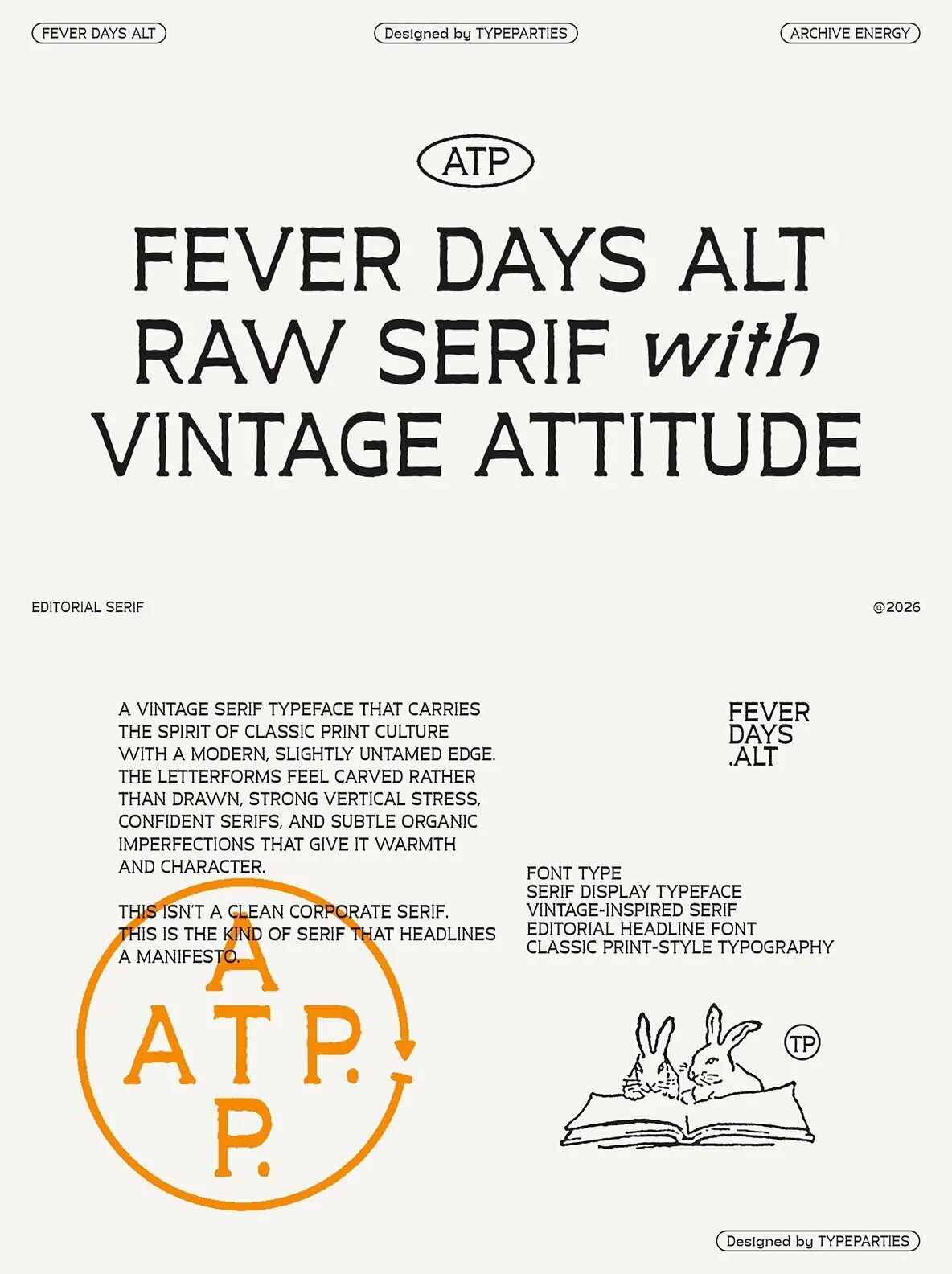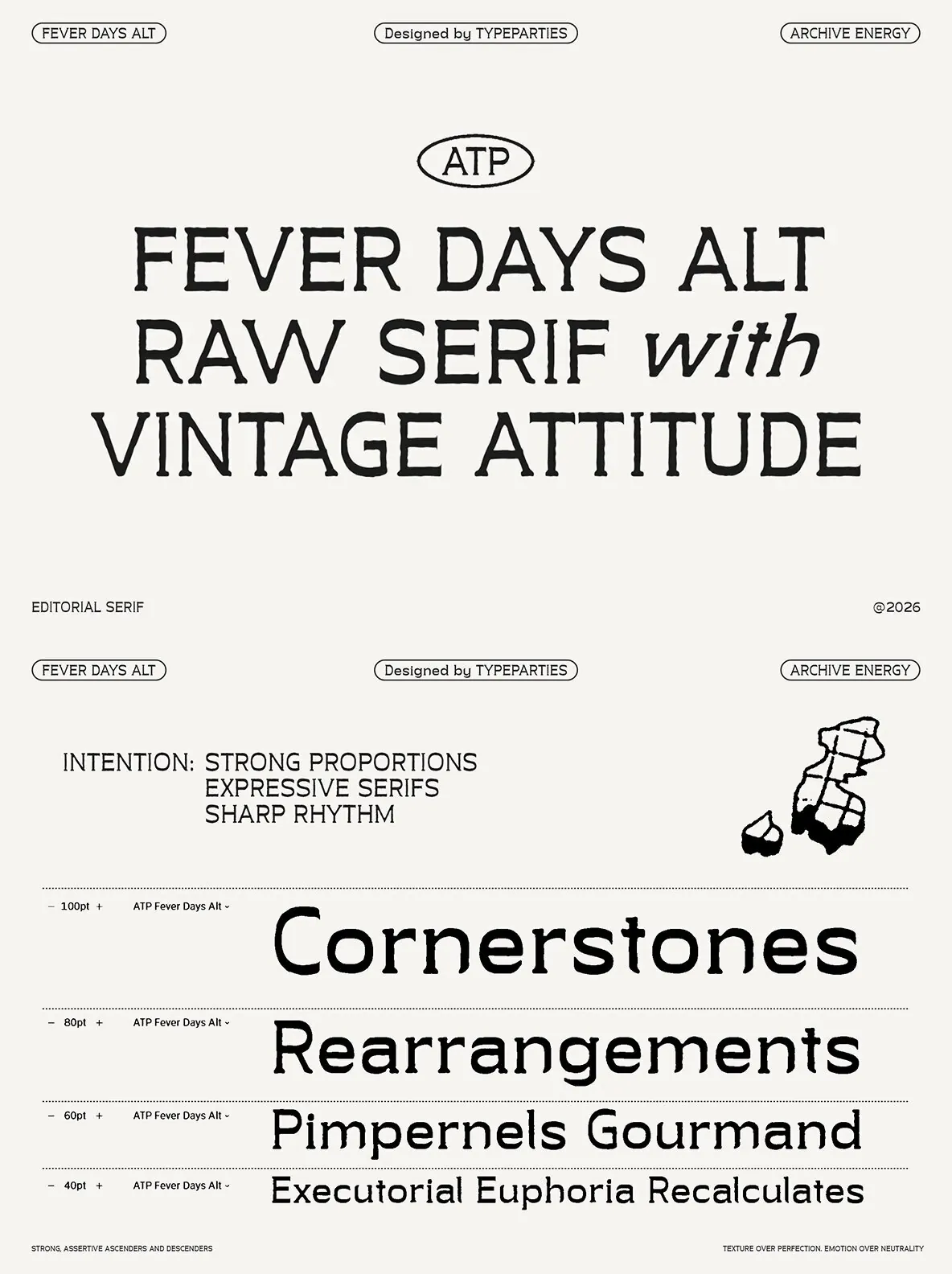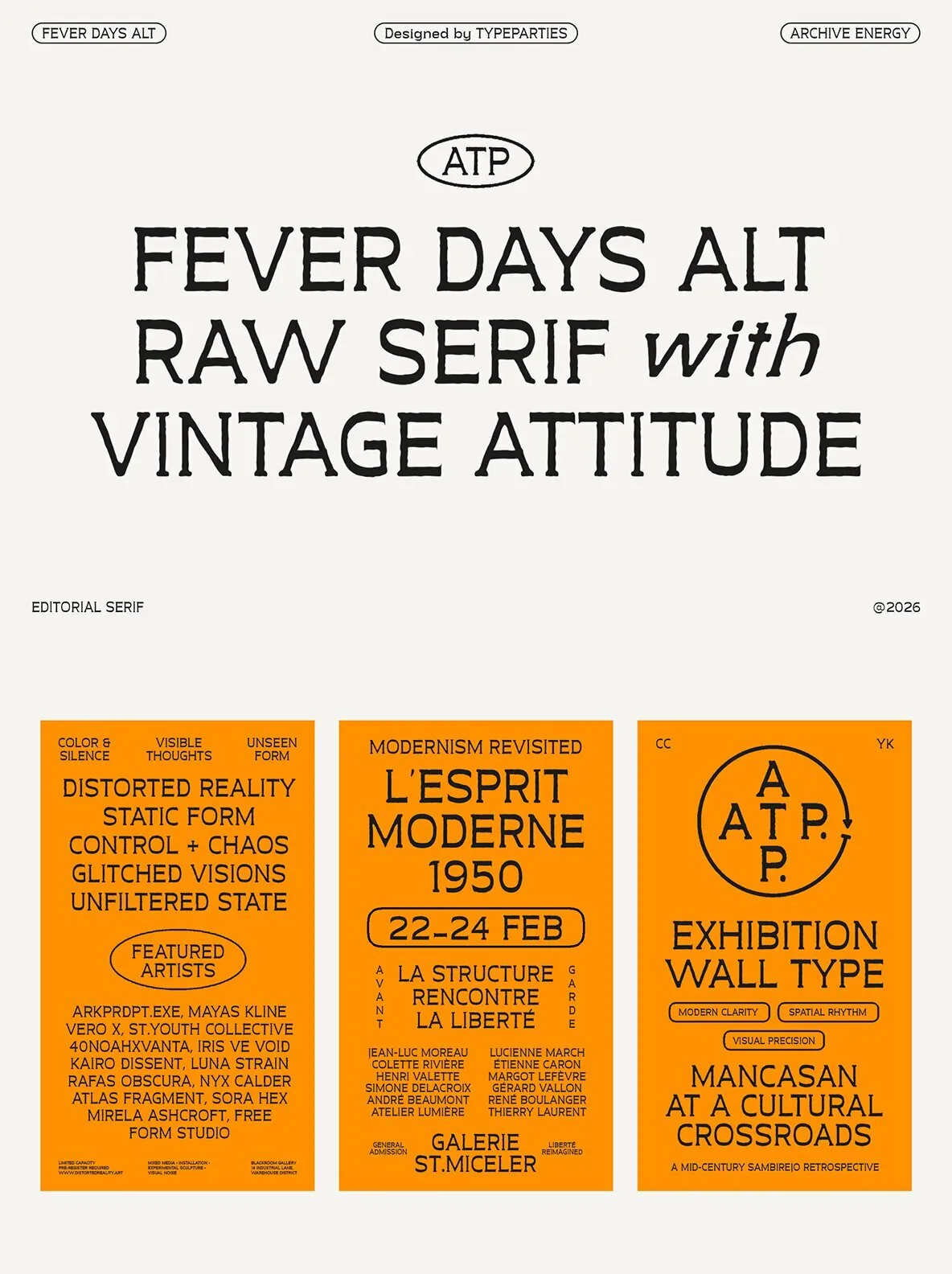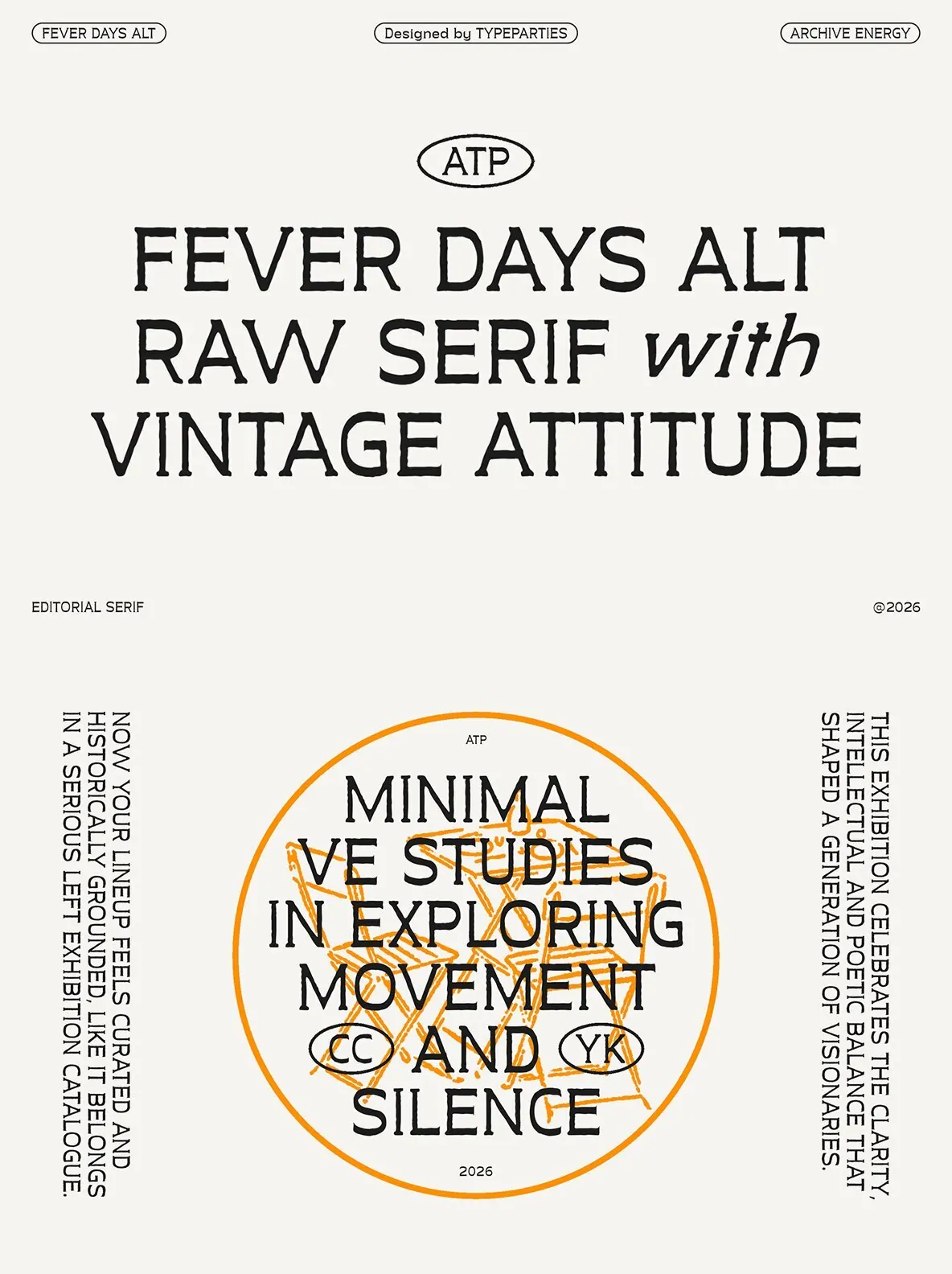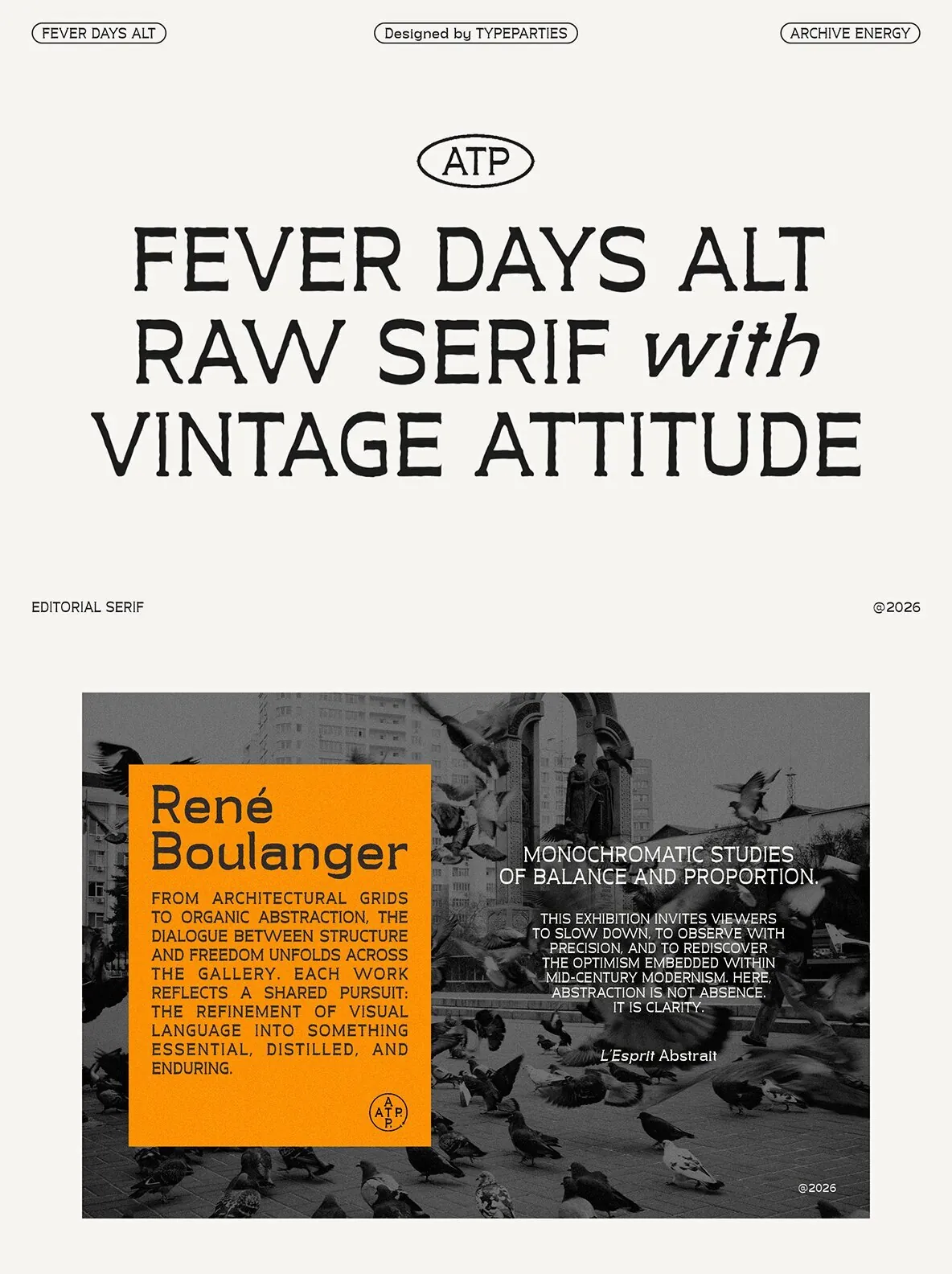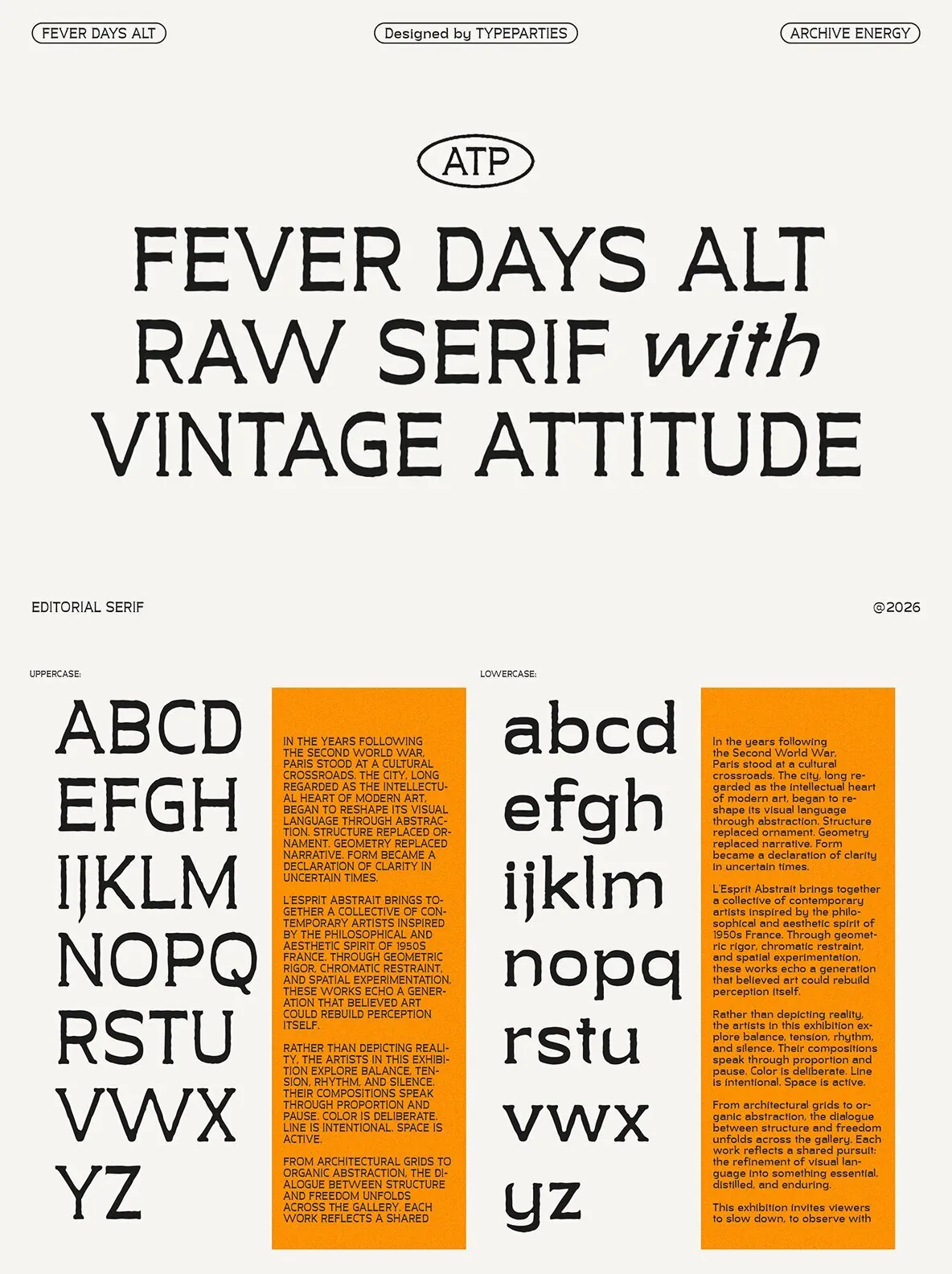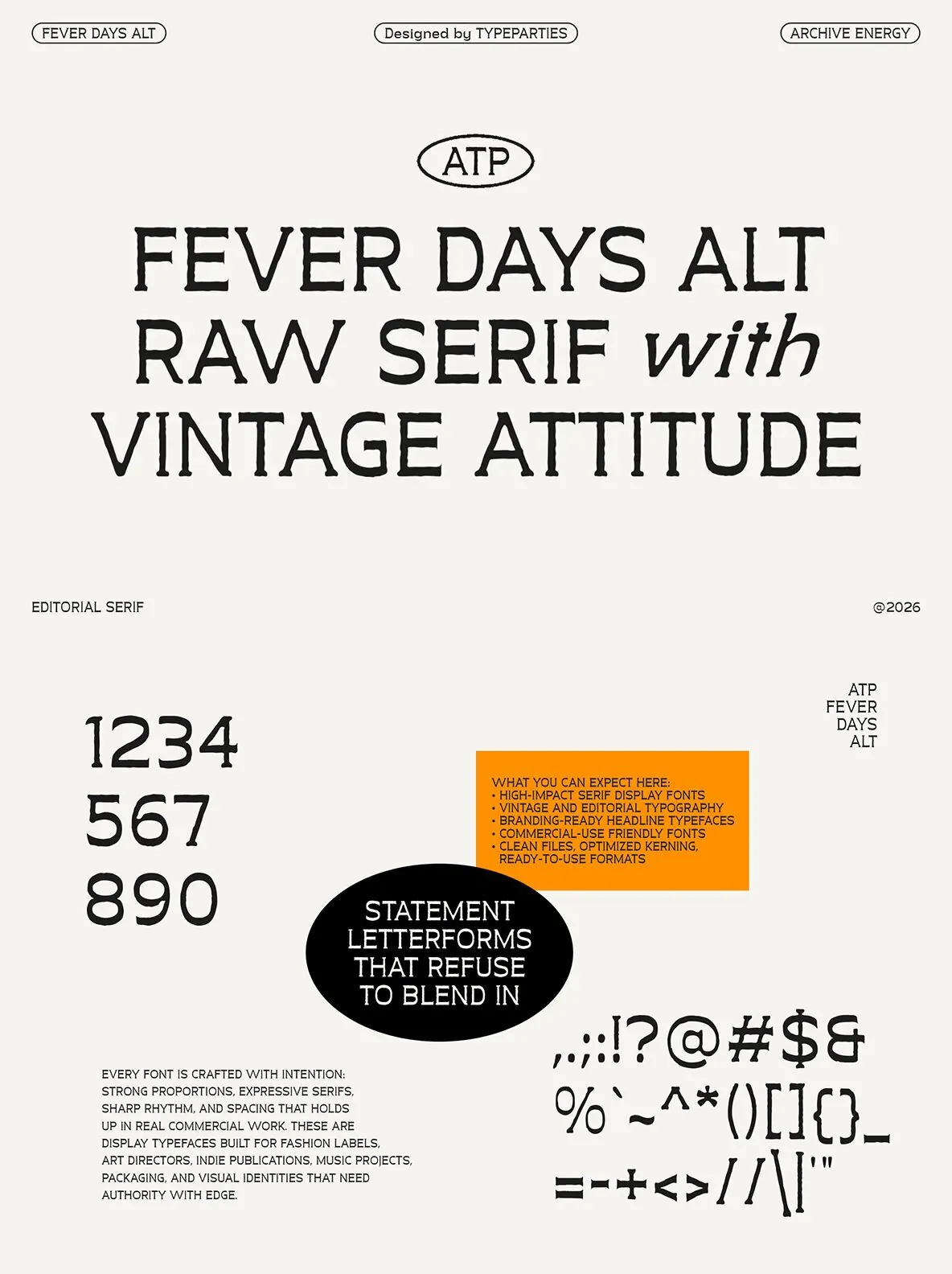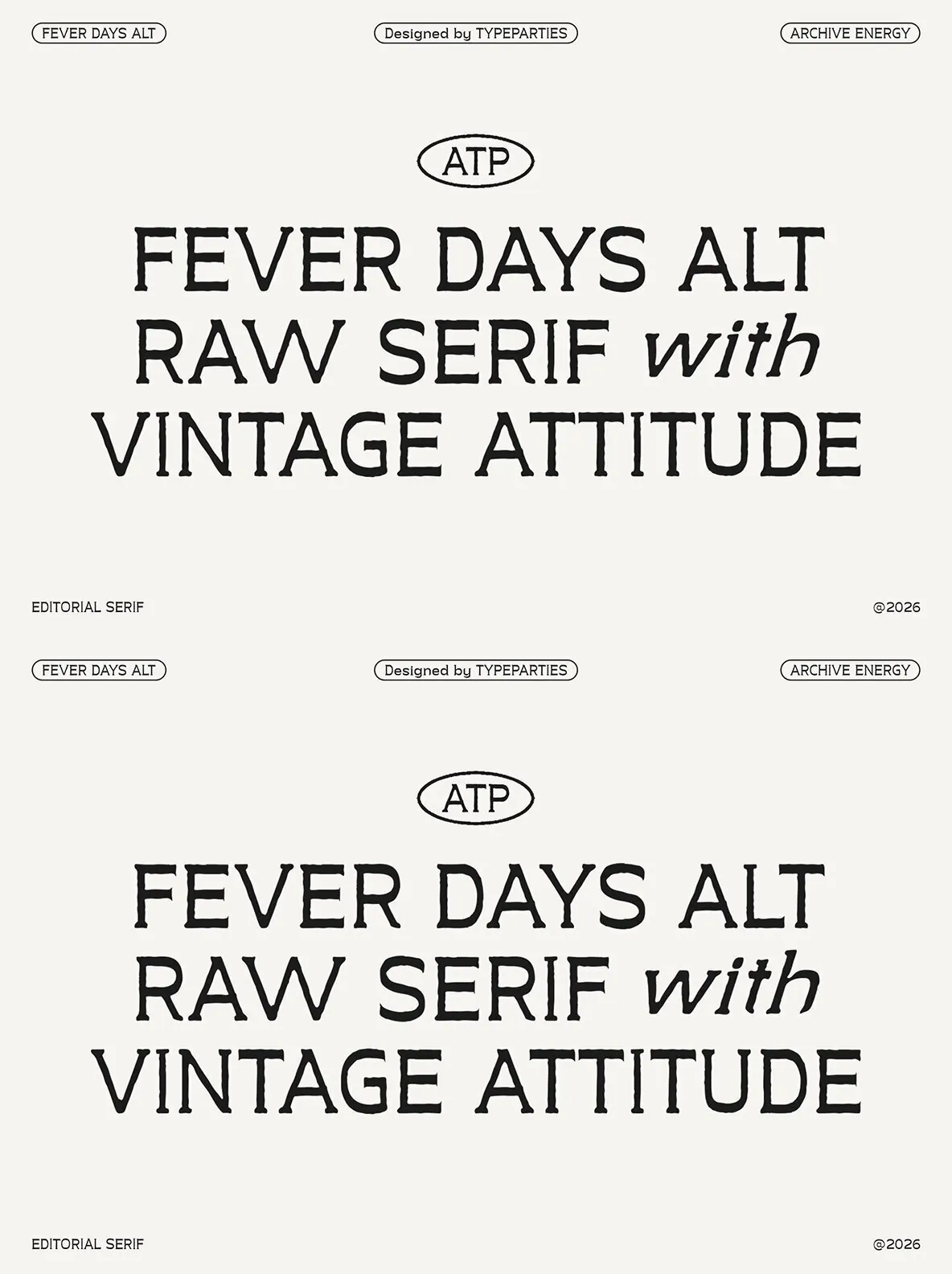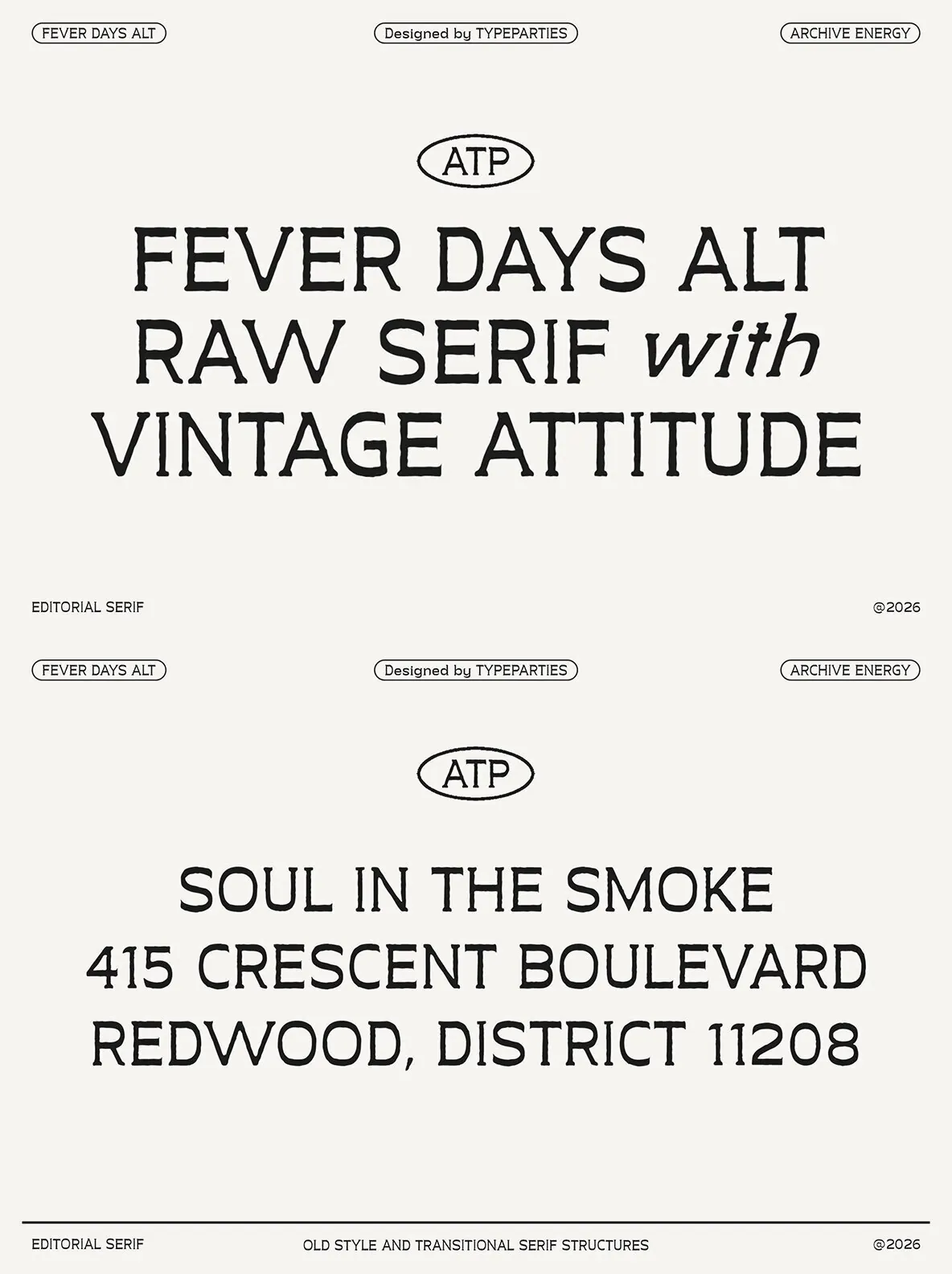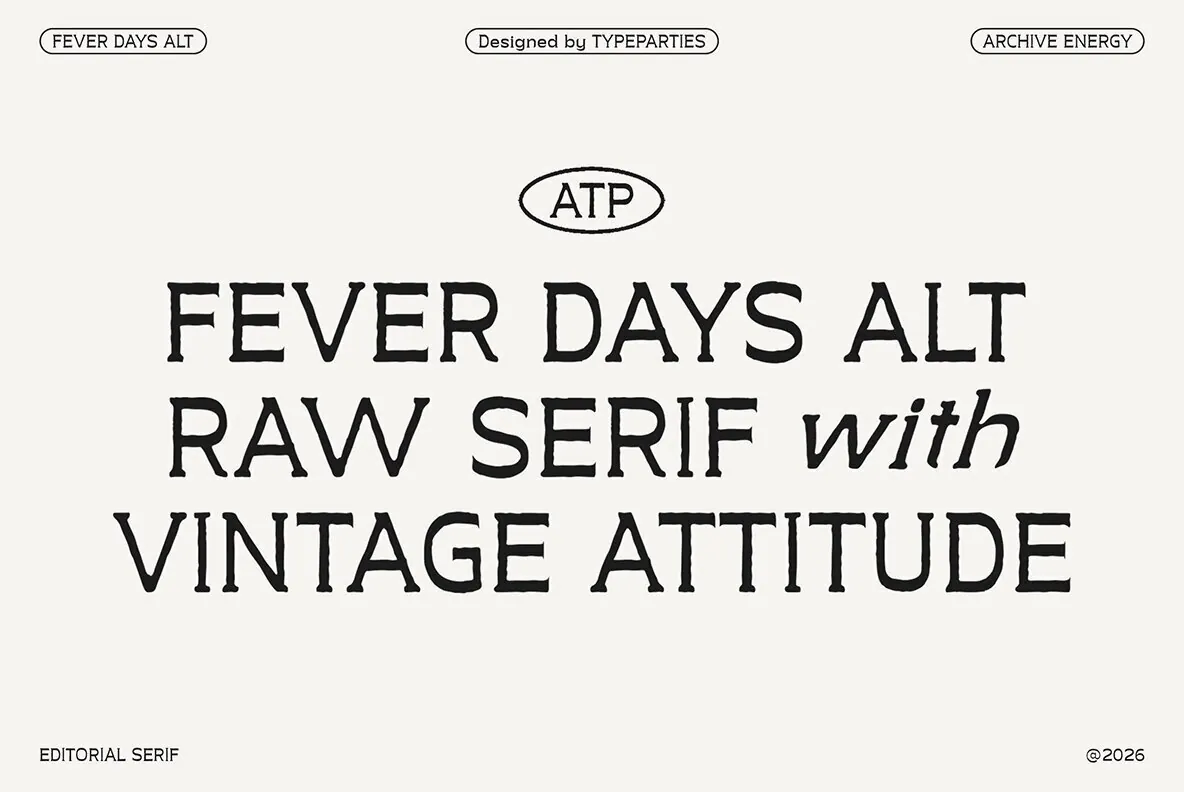
FEVER DAYS ALT — Serif With Bite
FEVER DAYS ALT is a bold serif typeface with the spirit of classic print culture and a modern, slightly untamed edge. Its letterforms feel carved rather than drawn, with strong vertical stress, confident serifs, and subtle organic imperfections that give the font warmth and character.
This is not a clean corporate serif. It is the kind of serif that headlines a manifesto. FEVER DAYS ALT brings force and texture to display typography, giving titles, statements, and high-impact text a distinct printed presence without losing its contemporary attitude.